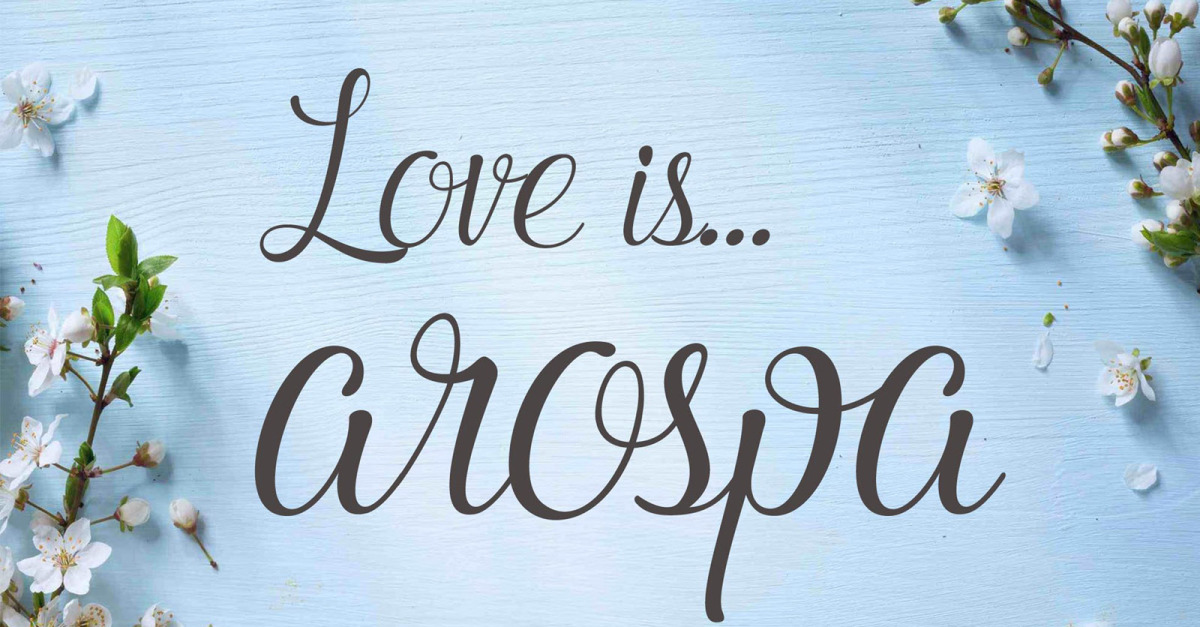
Arospa Cursive Font
Grapicker presents another great font.This is a Minimalist Modern Elegant font with beautiful ligatures, tons of special alternative glyphs, ornament and multilingual support. It’s a very versatile font that works great in large and small sizes. This is perfect for branding projects, Logo design, Clothing Branding, product packaging, magazine headers, or simply as a stylish text overlay to any background image.
Features:
- All caps
- Stylistic Alternates & Ligatures
- Numerals & Punctuation
- Accented characters
- Multiple Languages Supported